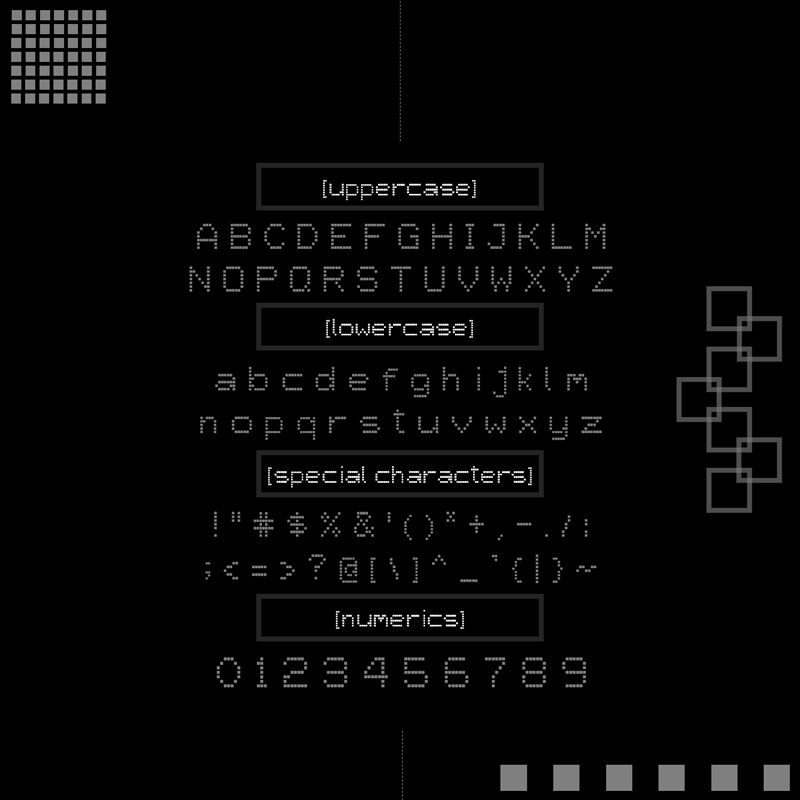
This is a font that needs no introduction. Square 77 takes its name from the pixels that each characters looks like, a tribute to the old and simple days of pixel art.
The font was built with passion.